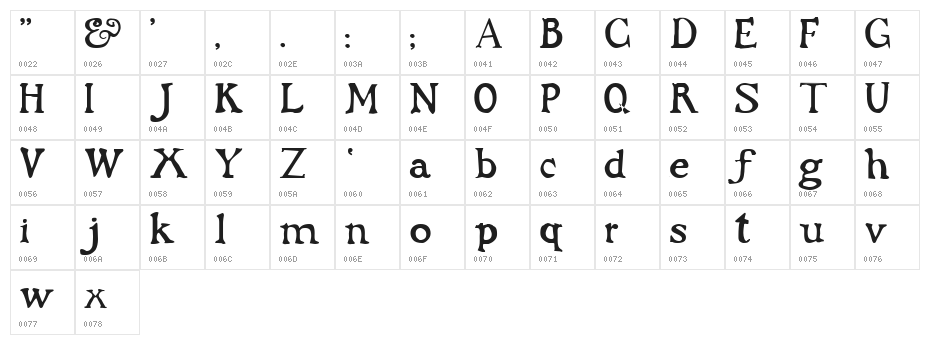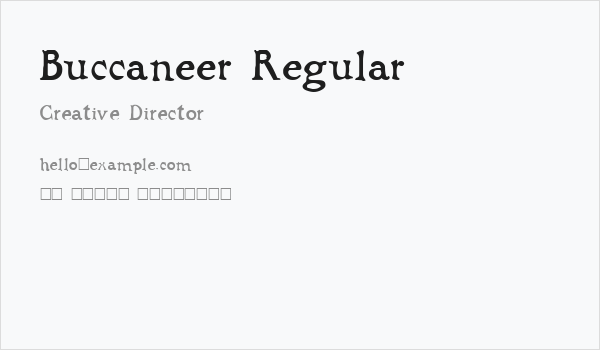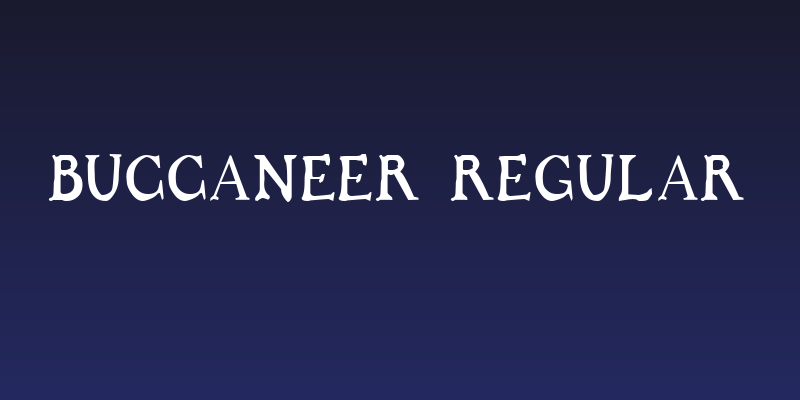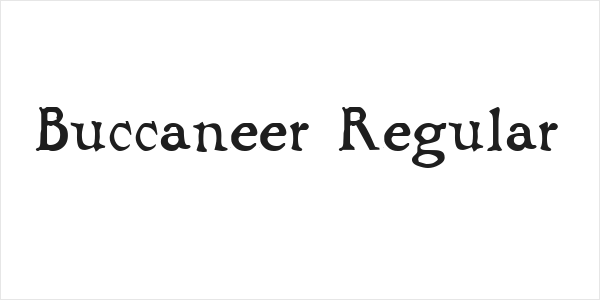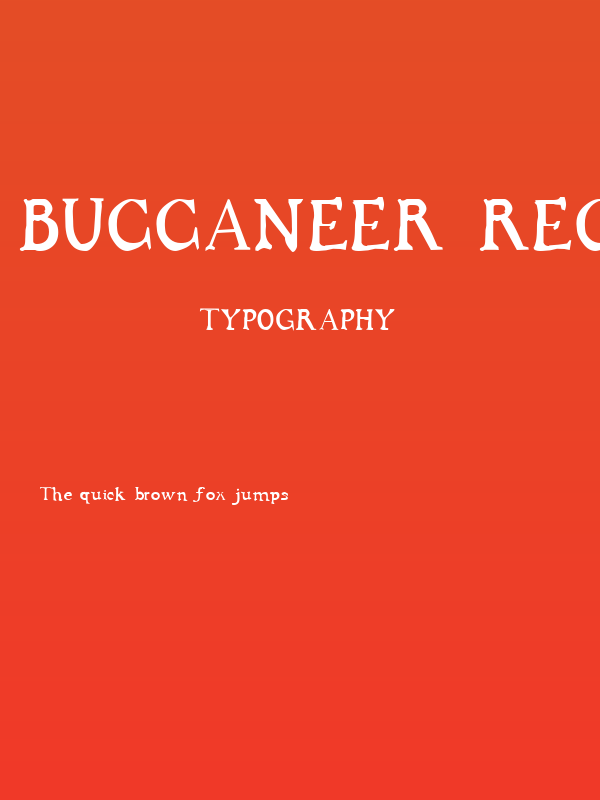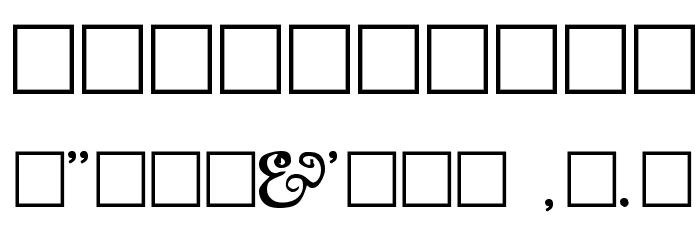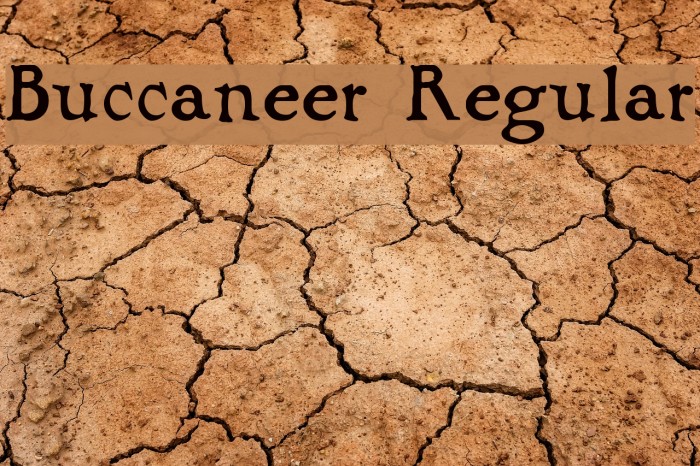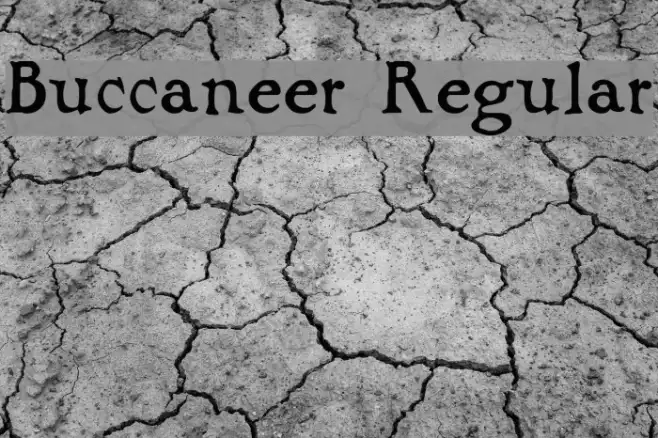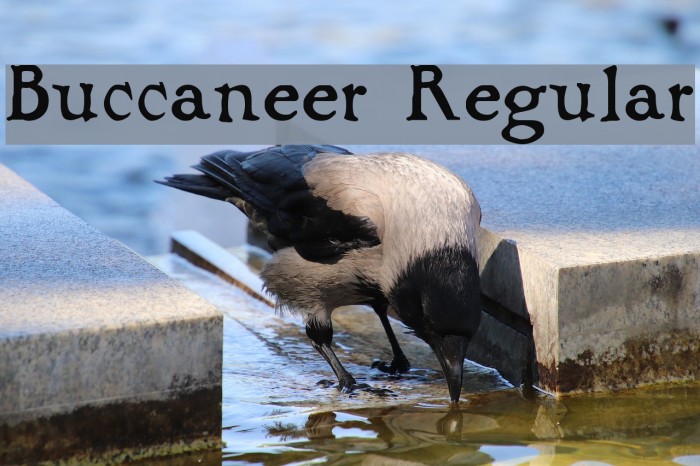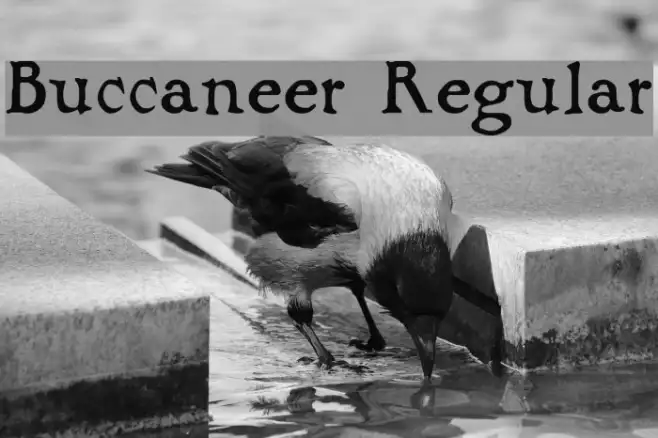
Buccaneer Regular Font
Buccaneer Regular Description
This font exudes a vintage, pirate-inspired aesthetic with its bold, decorative style. The uppercase letters are characterized by sharp, angular serifs and a slightly uneven baseline, giving them a hand-drawn appearance. The lowercase letters maintain a similar style, with unique flourishes that add to the overall whimsical and adventurous feel. The numbers and special characters are consistent with the font's theme, featuring distinctive shapes and embellishments. This font is perfect for projects that require a touch of historical or nautical flair.
| Proposed Projects | Ideal for themed event invitations, book covers, branding for historical or nautical businesses, and decorative signage. |